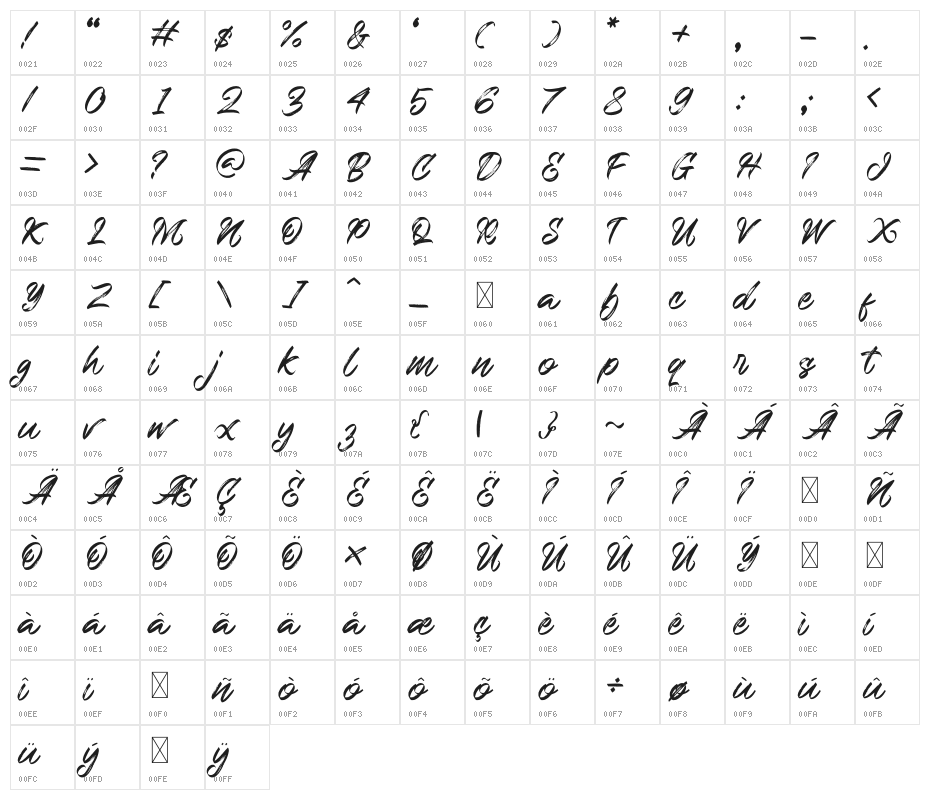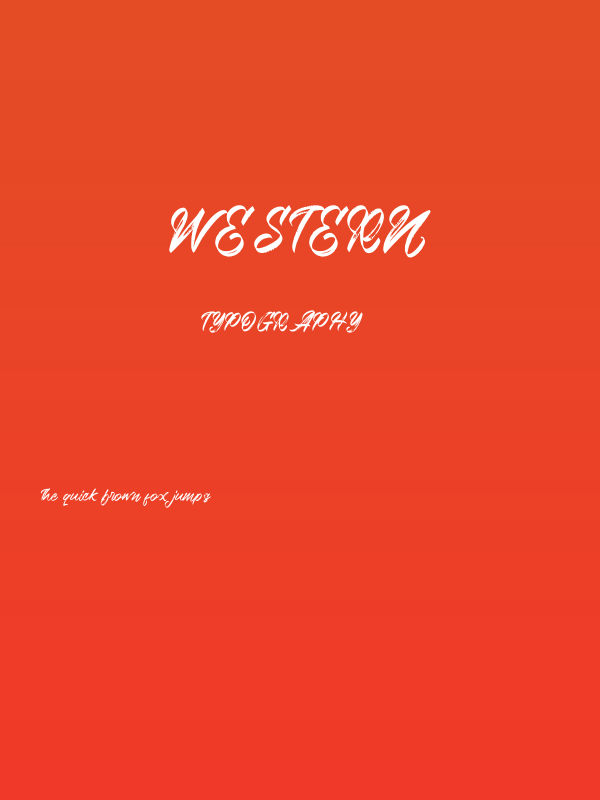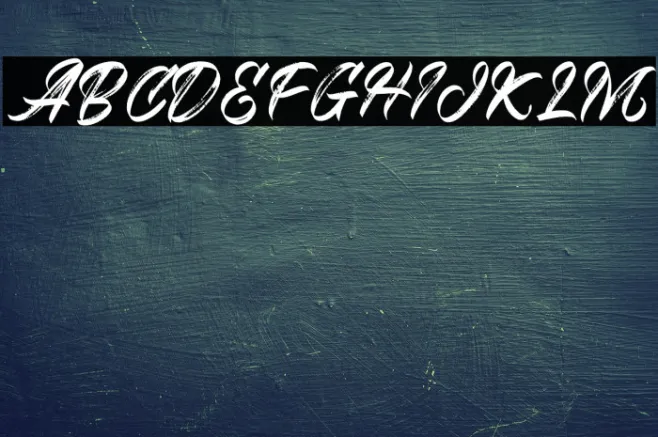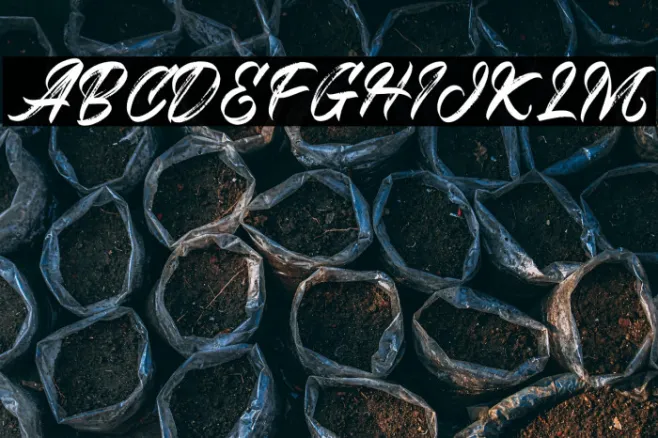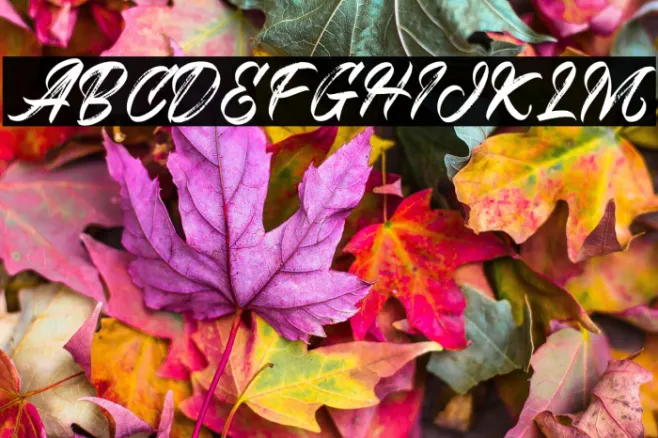
Western Font
Western Description
This font features a bold, expressive script style with a dynamic and energetic flow. The strokes are thick and textured, giving a hand-painted appearance that adds a sense of movement and vibrancy. The uppercase and lowercase letters are designed with a consistent slant, enhancing the cursive nature of the font. The numbers and special characters maintain the same bold and artistic style, ensuring a cohesive look across all elements. The overall design is reminiscent of brush lettering, making it ideal for projects that require a personal and artistic touch.
| Proposed Projects | Ideal for branding, posters, invitations, and any design requiring a personal, artistic touch. |